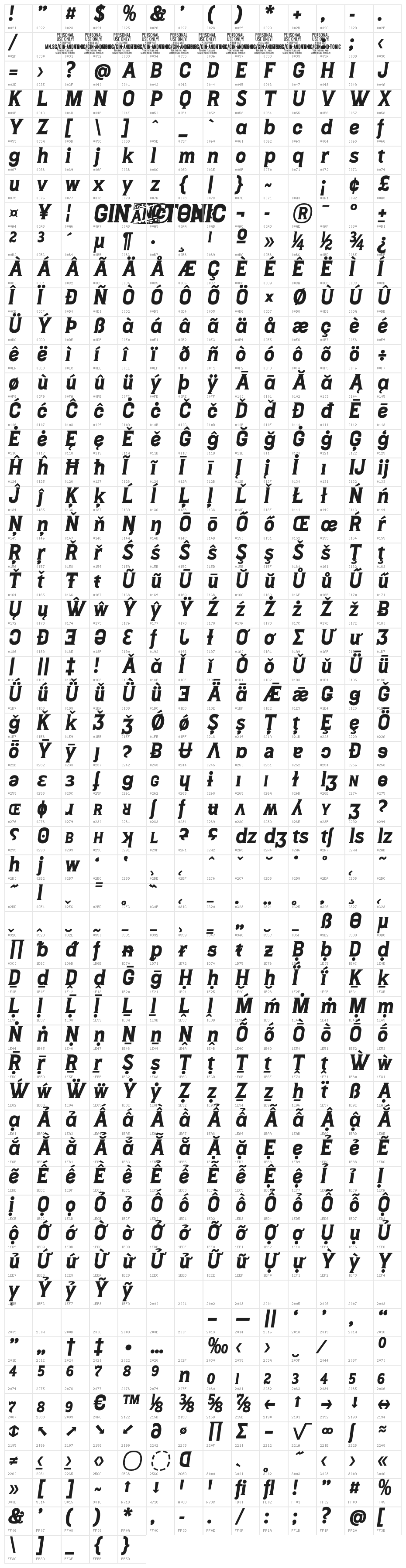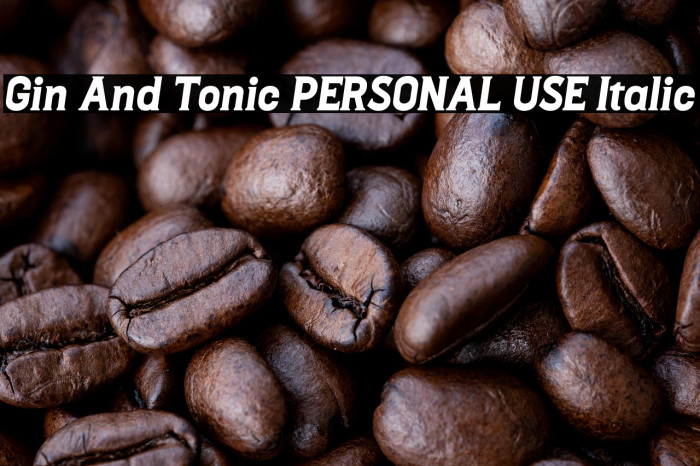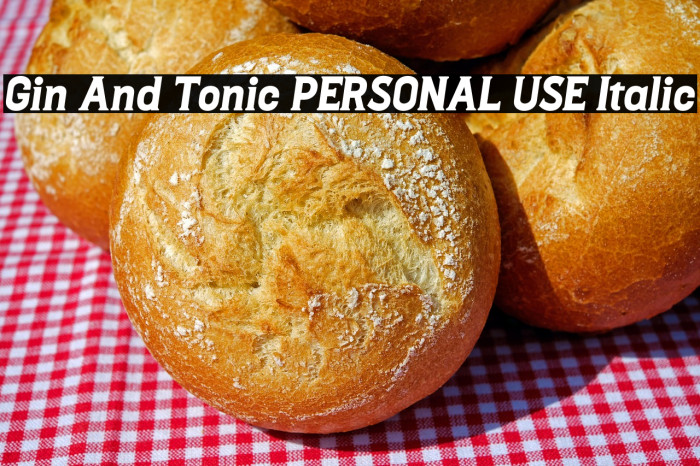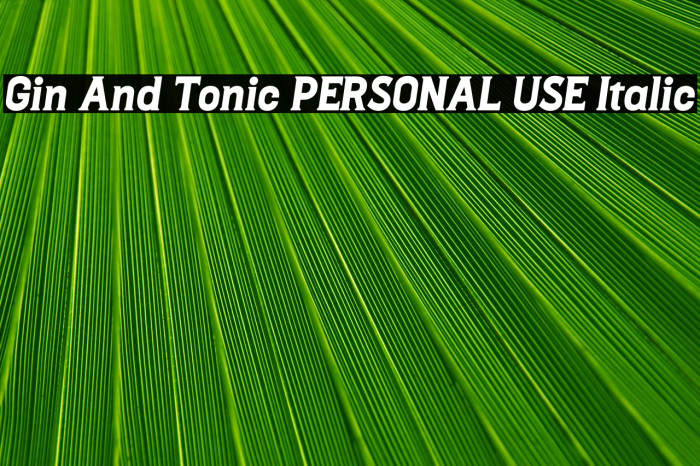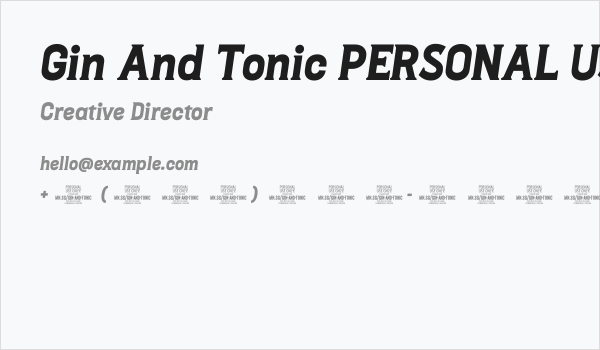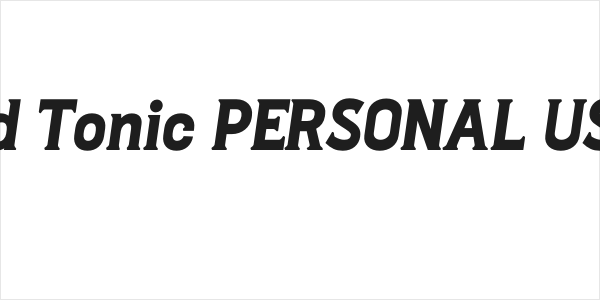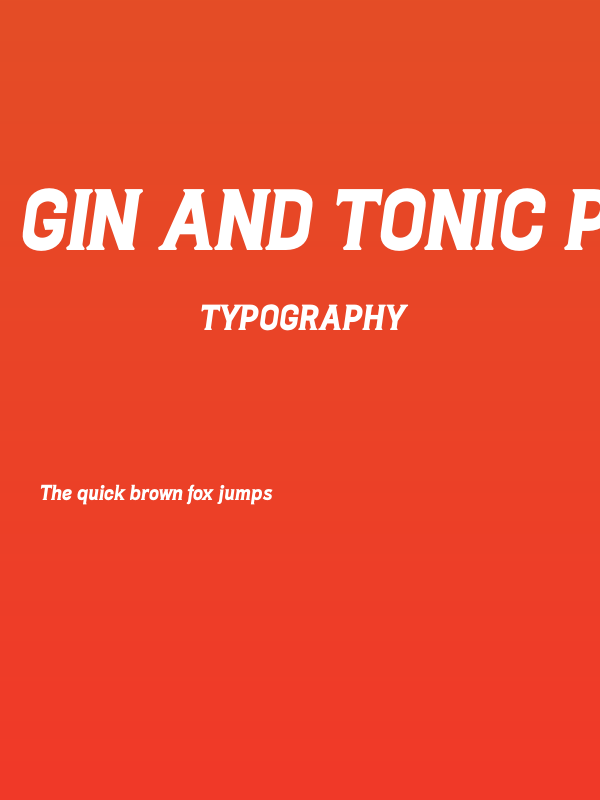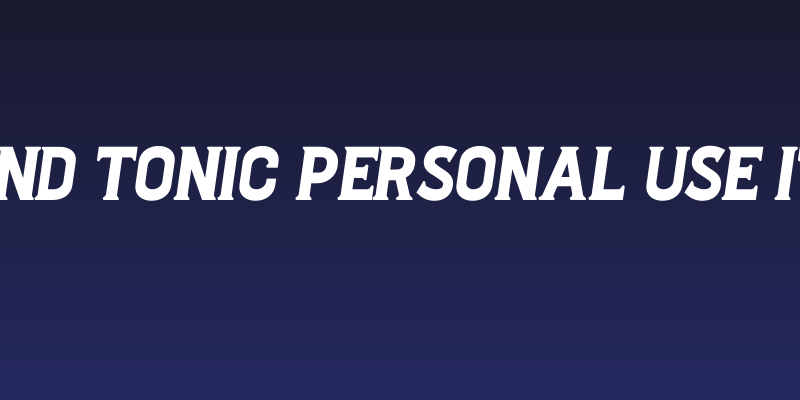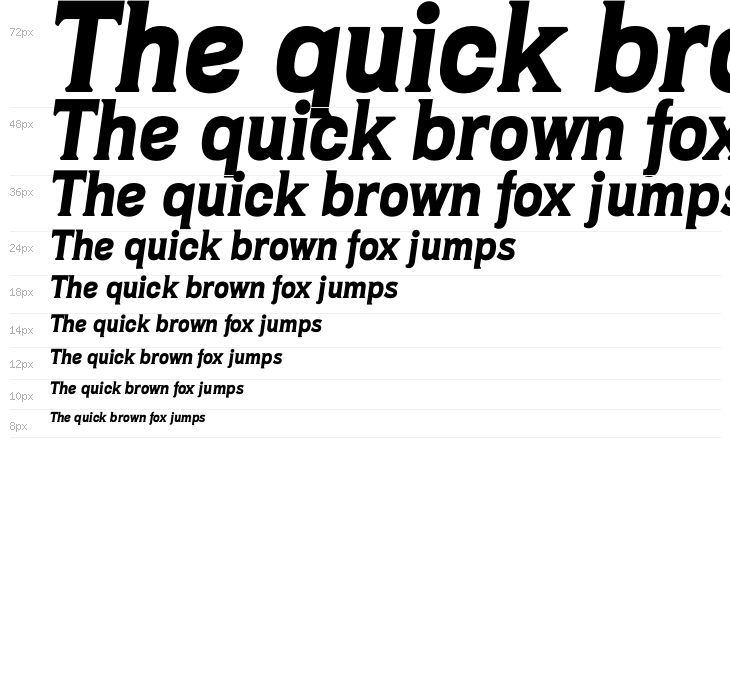
Gin And Tonic PERSONAL USE Italic Font
Gin And Tonic PERSONAL USE Italic Description
This font features a bold and dynamic italic style, characterized by its strong and assertive presence. The letters are slightly slanted, giving a sense of motion and energy. The strokes are thick and consistent, providing a robust appearance that commands attention. The uppercase and lowercase letters maintain a uniform width, ensuring readability while adding a touch of elegance. The numerals and special characters are designed to complement the alphabet, maintaining the same bold and italicized style. This font is suitable for projects that require a strong visual impact.
| Proposed Projects | Ideal for headlines, posters, branding, and advertising materials where a bold statement is needed. |